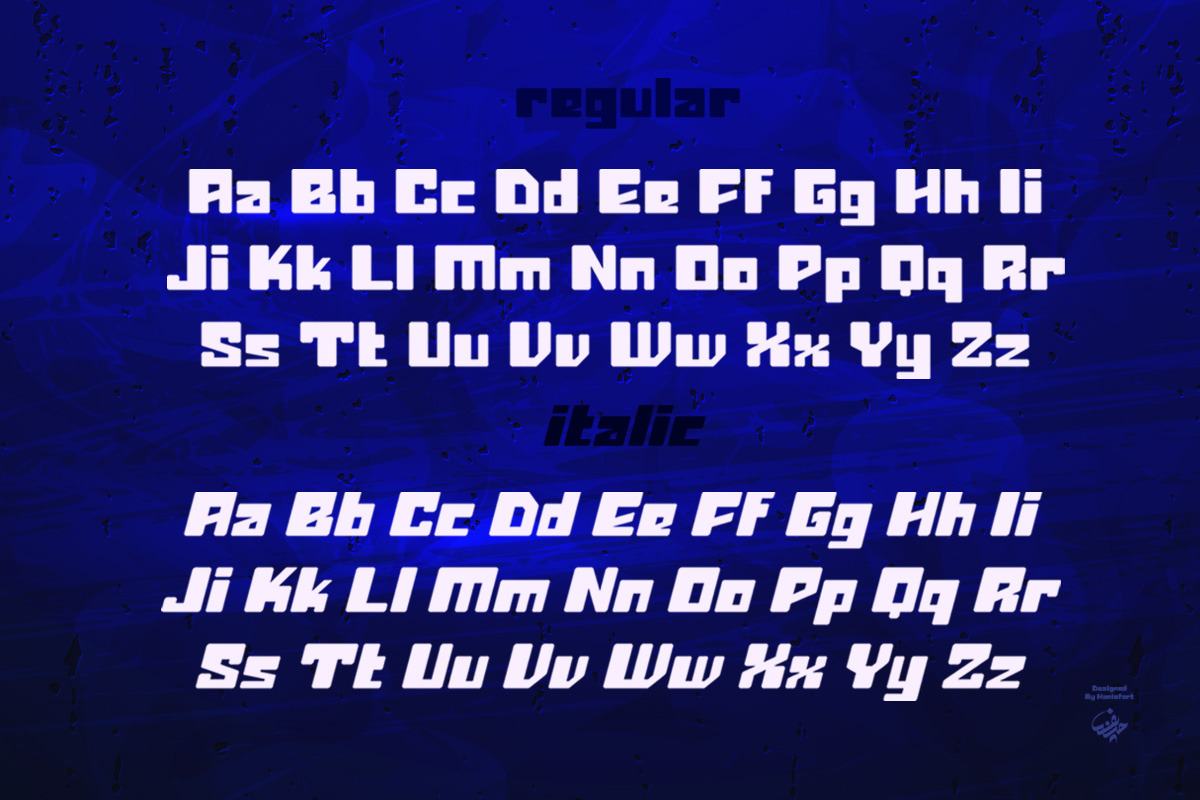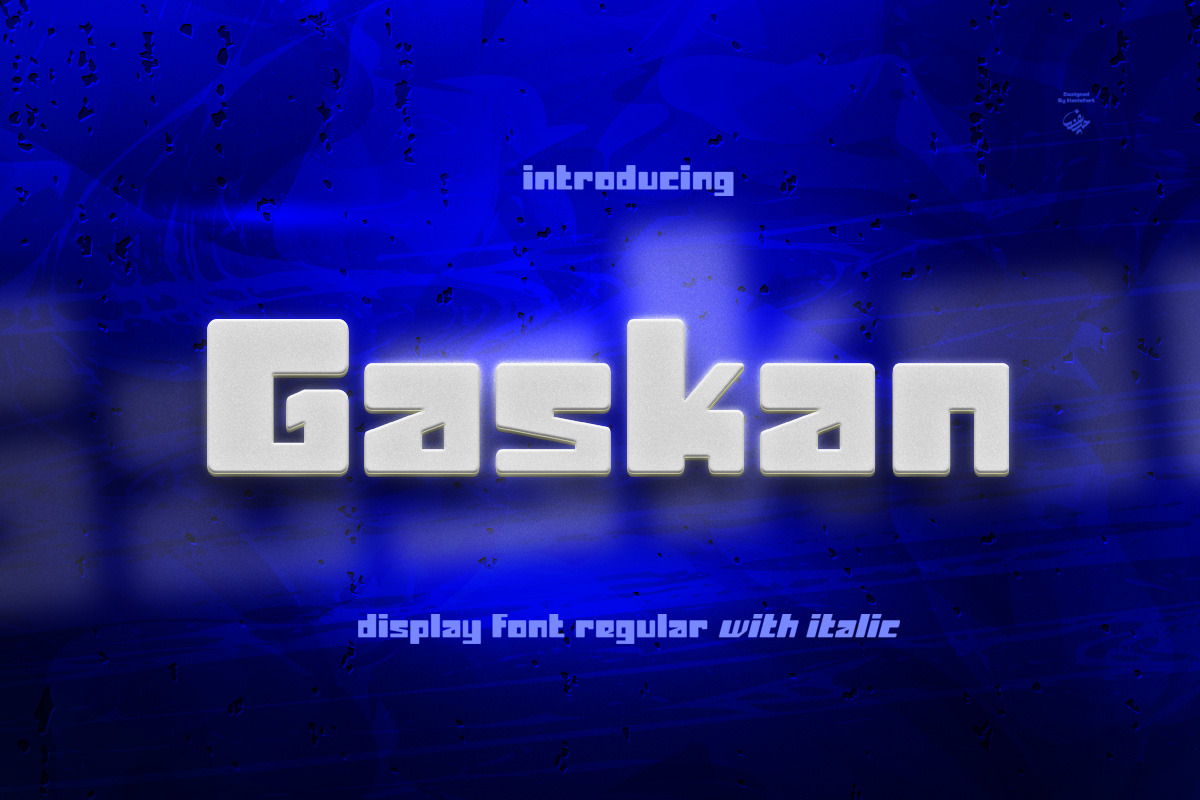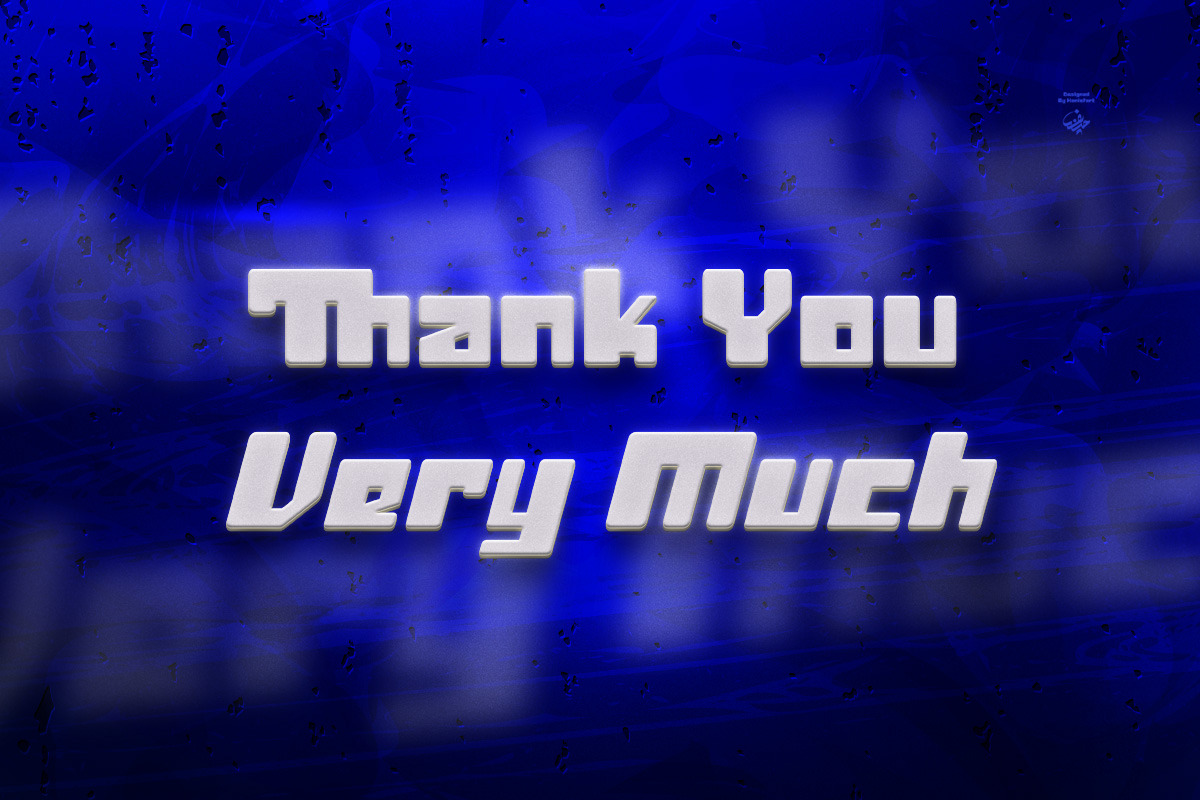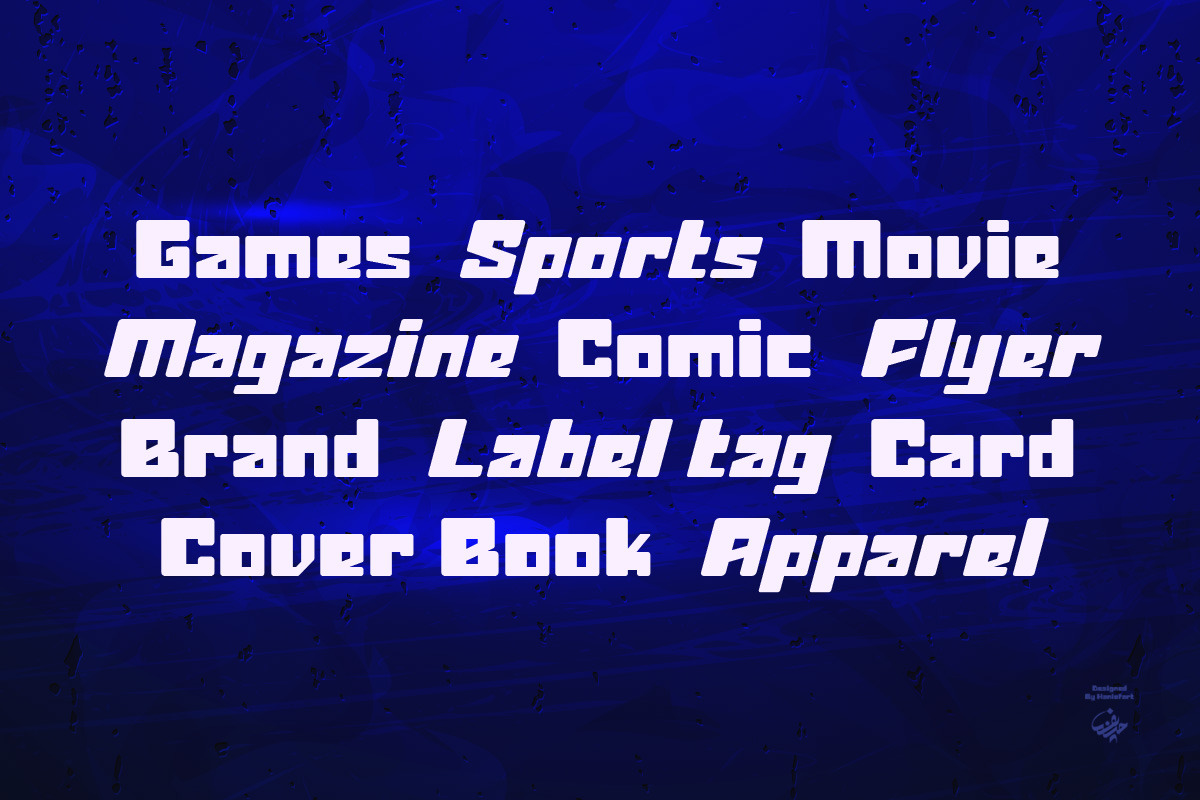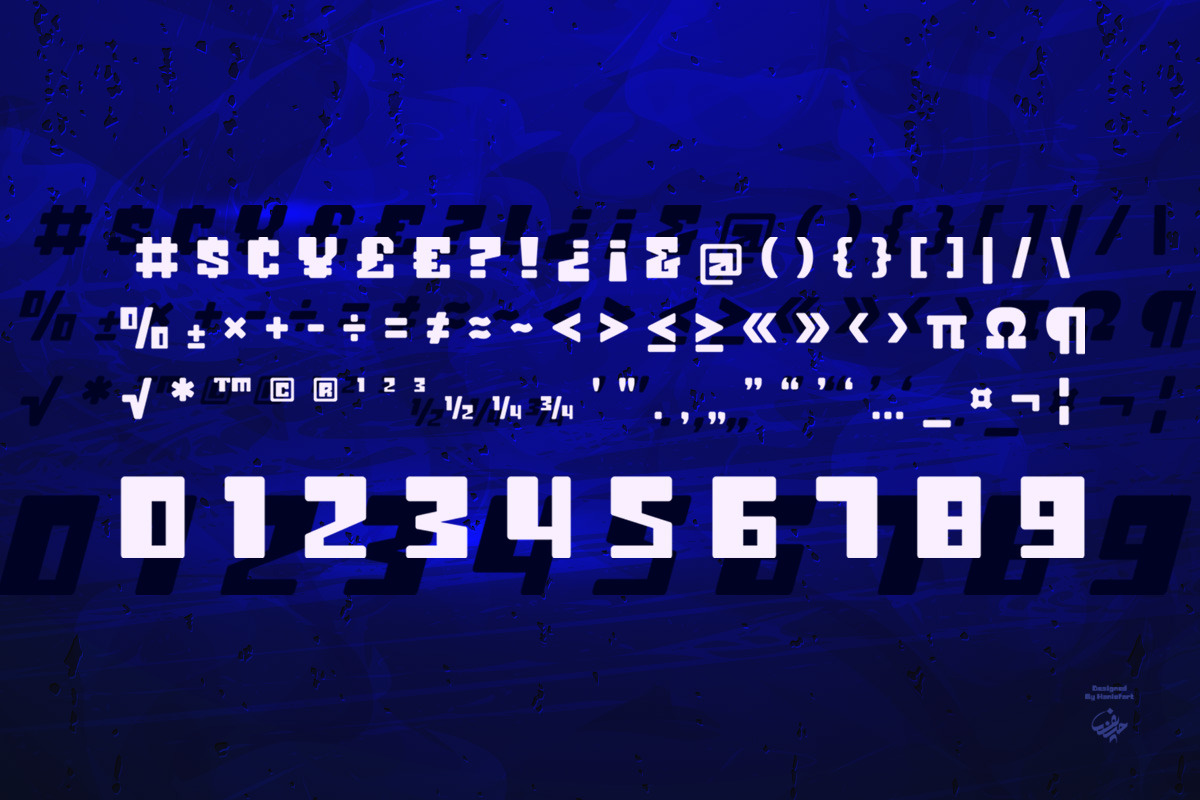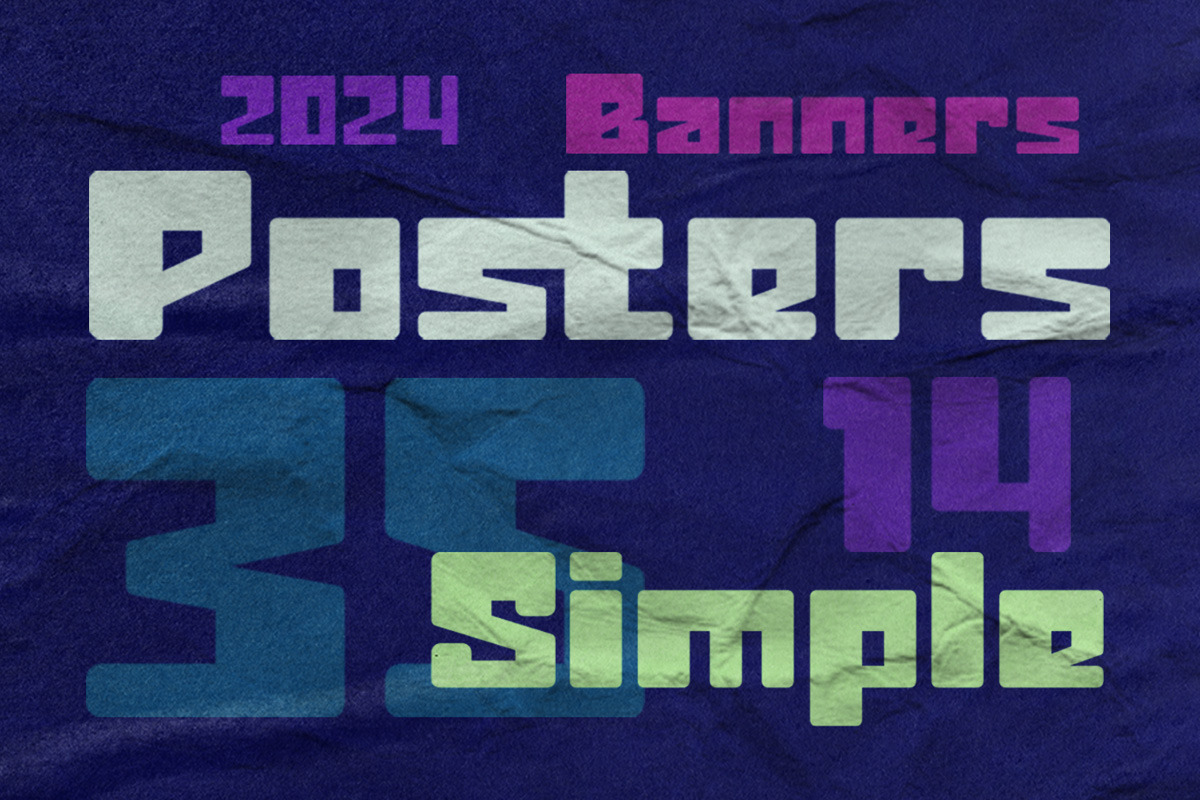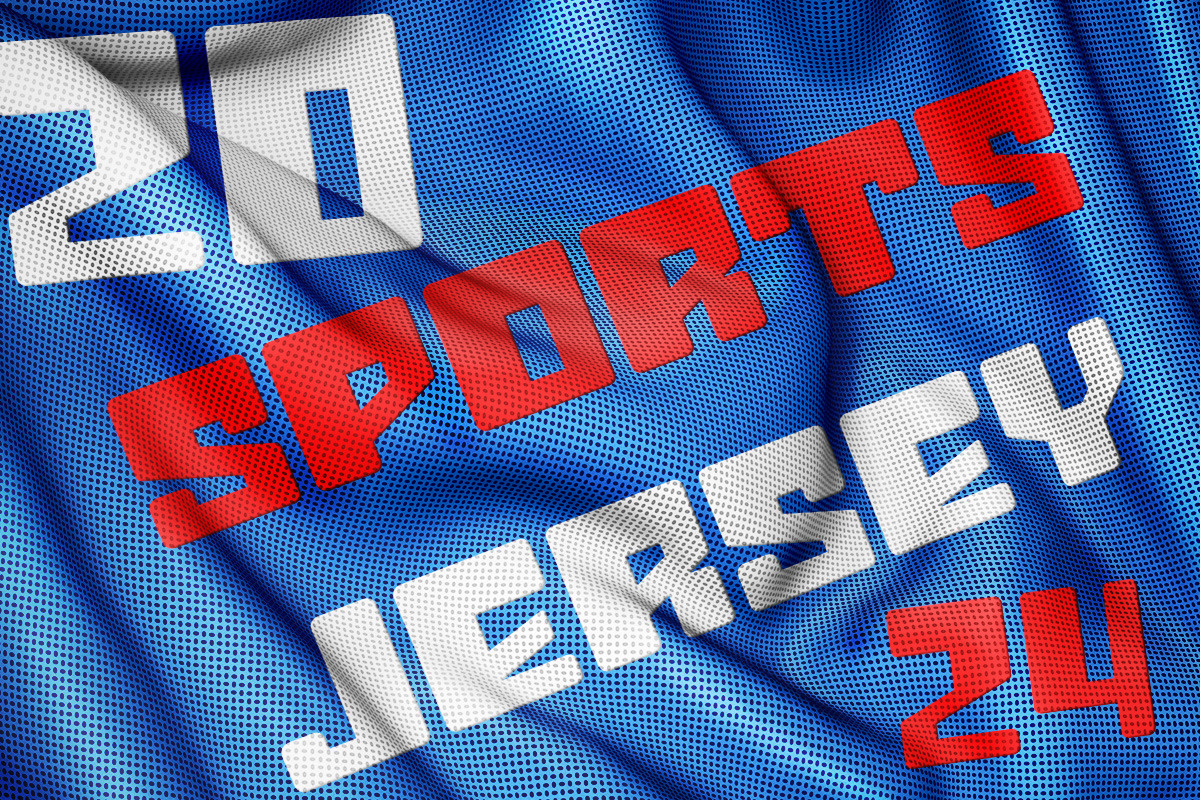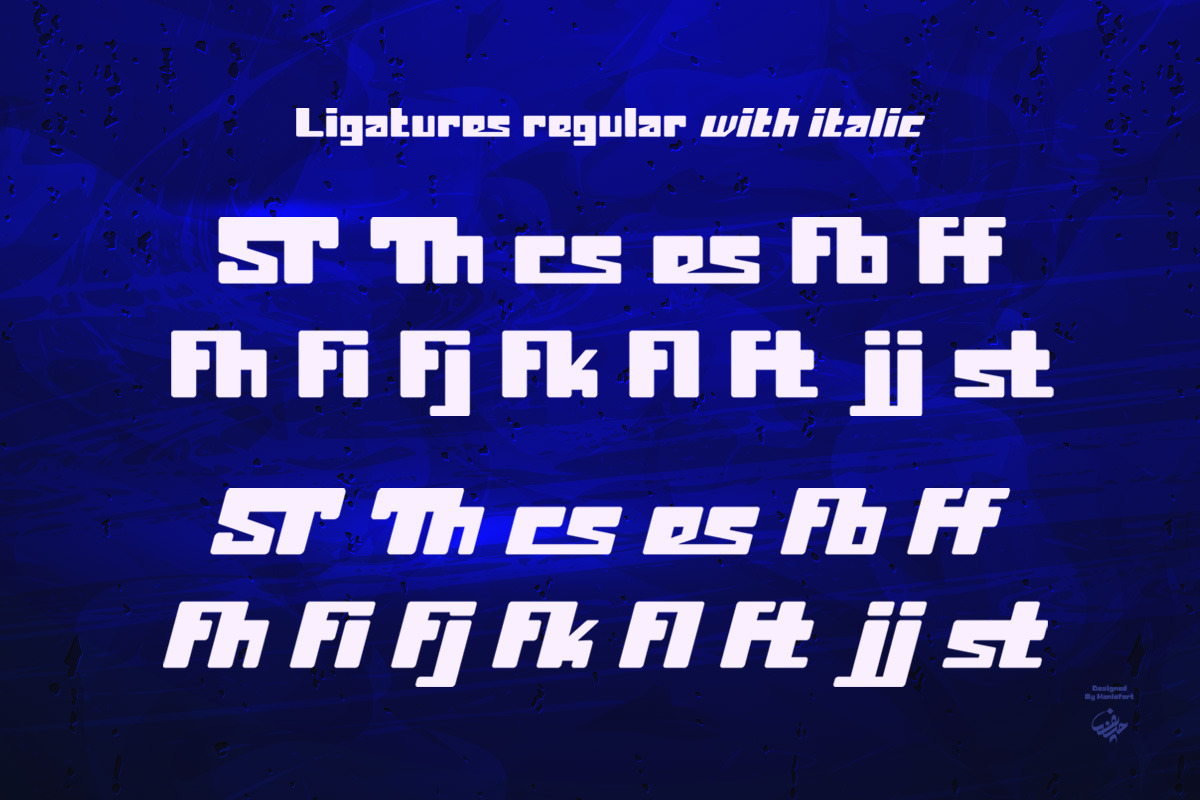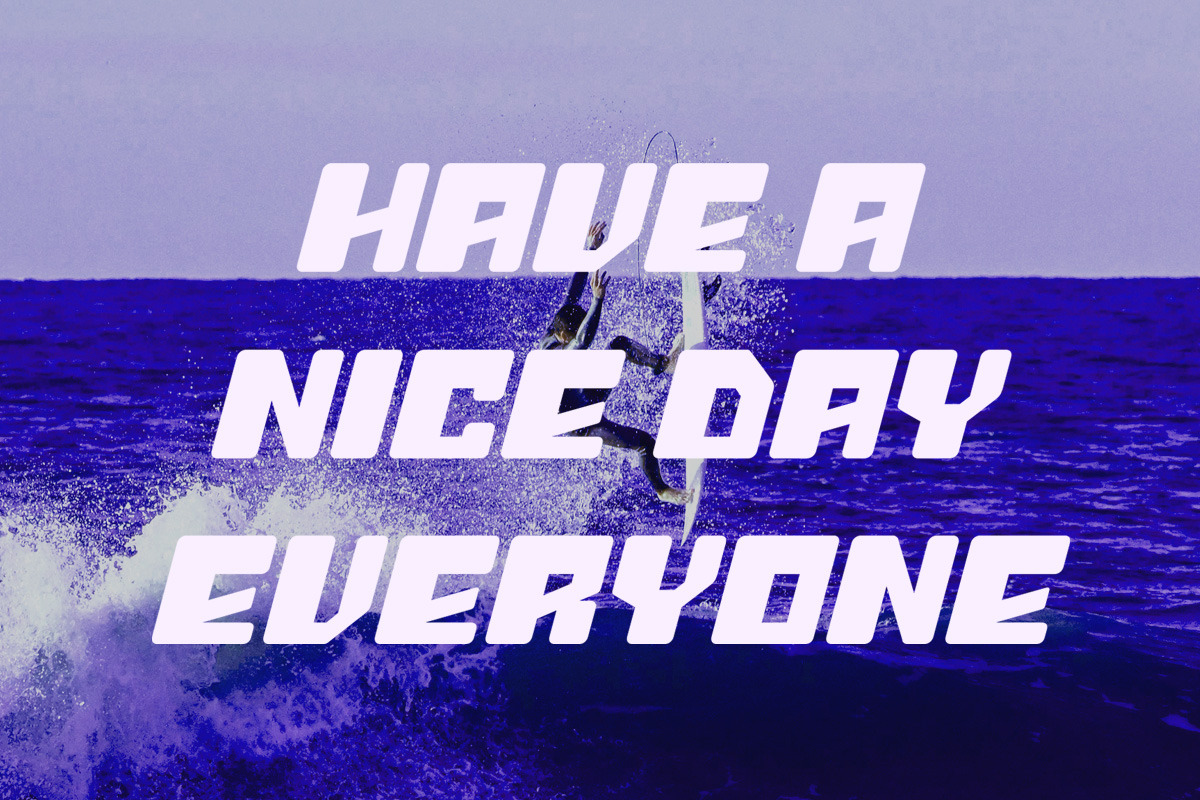
Gaskan - Display Font
.Gaskan is a futuristic bold display typeface, consisting of two styles regular and italic, available in uppercase, lowercase and ligature. This font is suitable for business brands, magazines, comics, t-shirts, banners, games, sports, movies, posters, flyers, book covers, and many others.